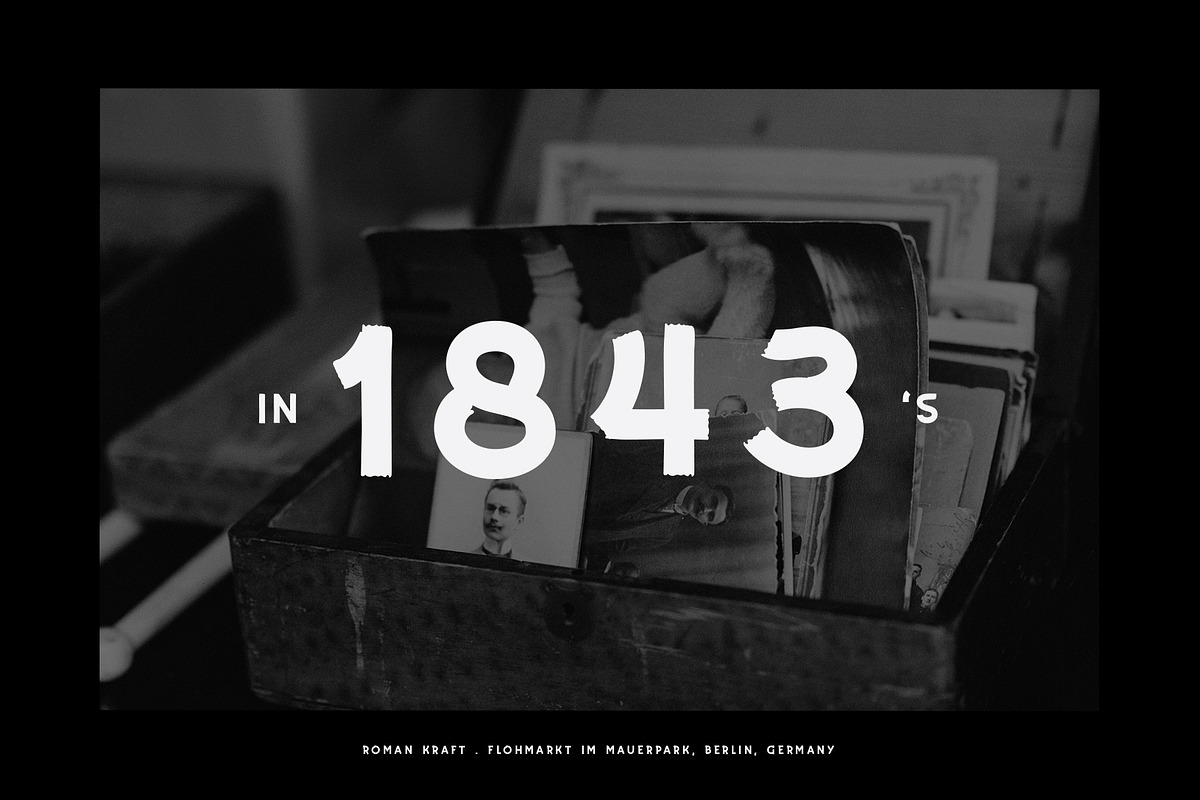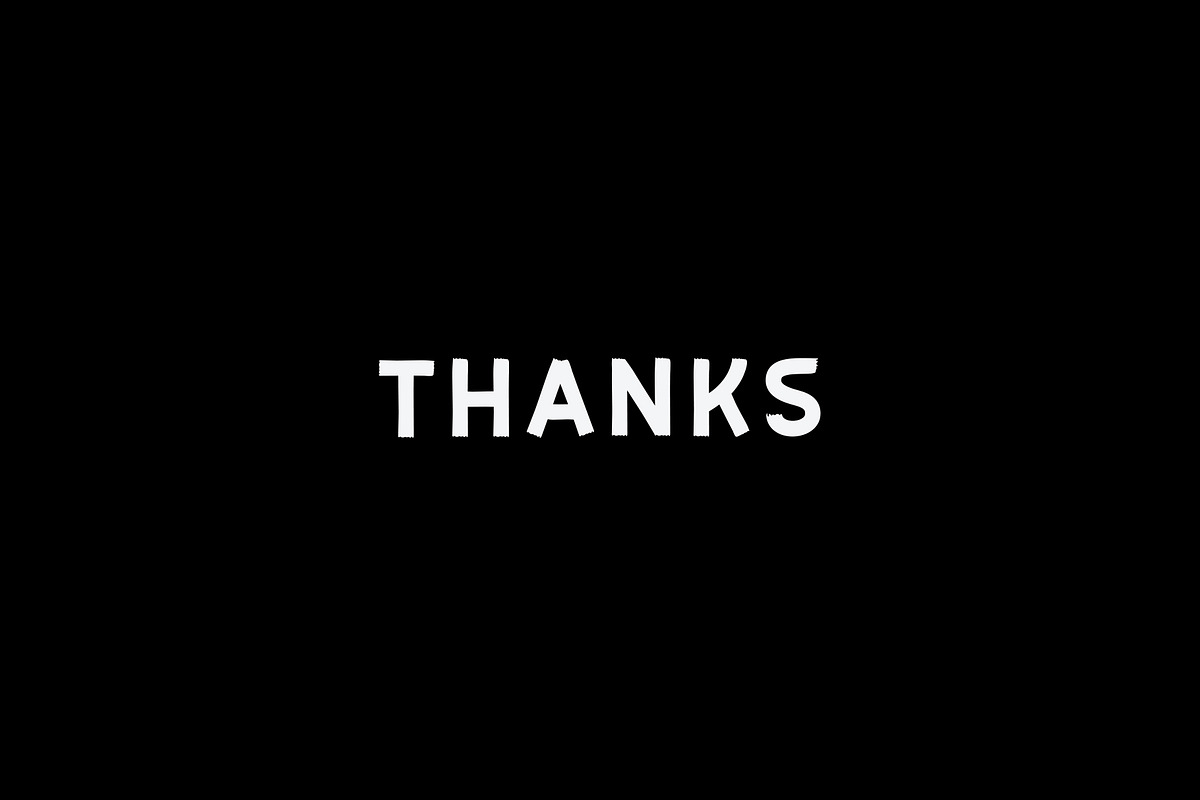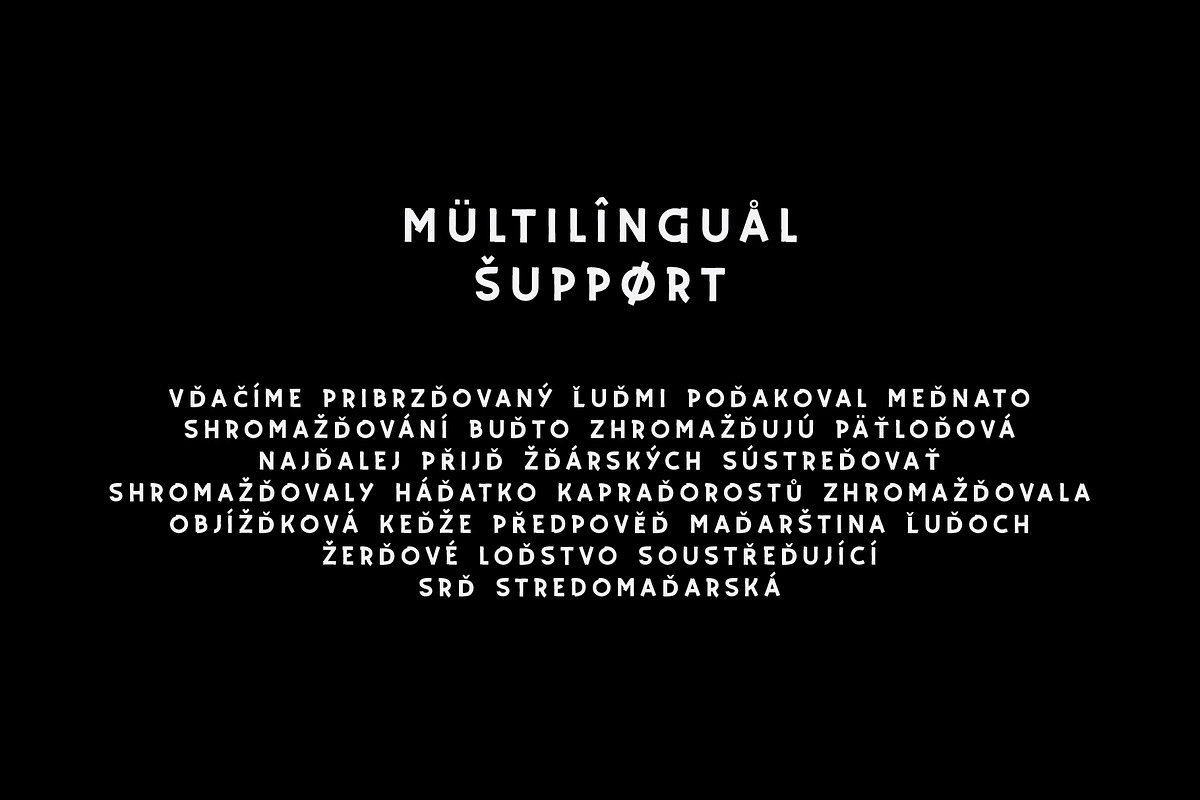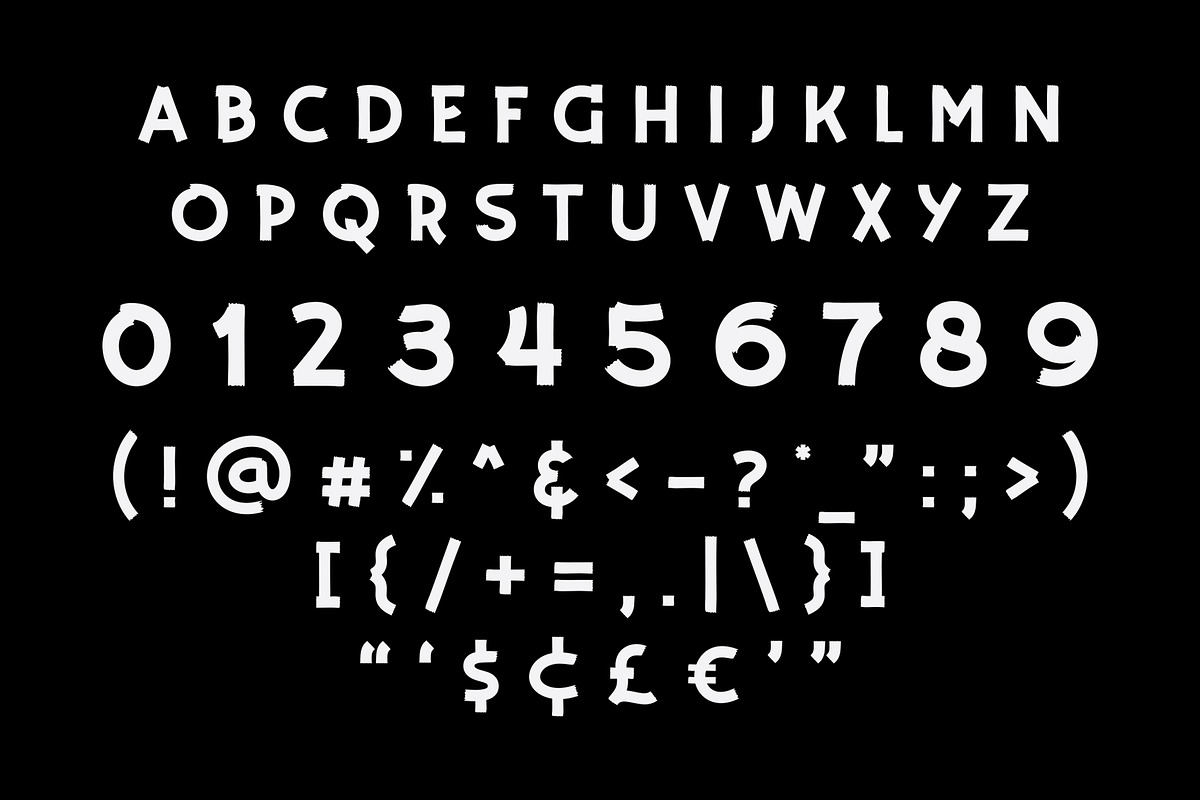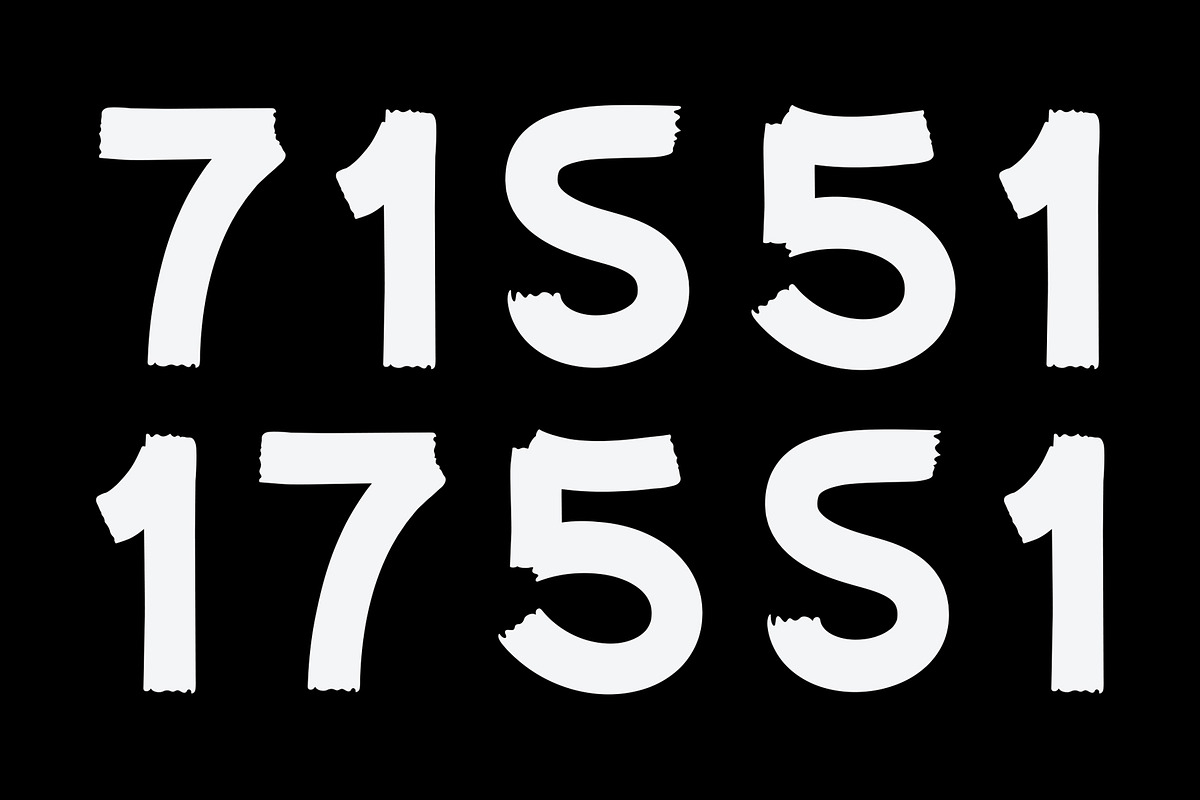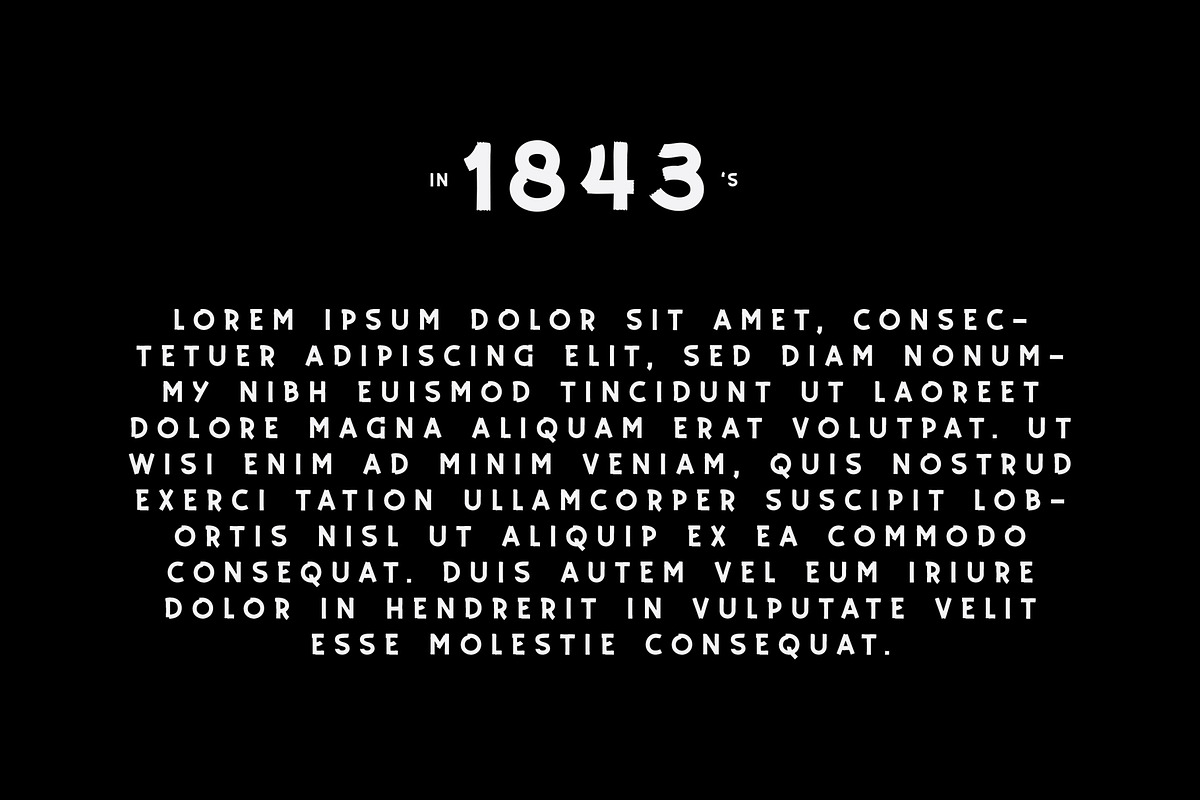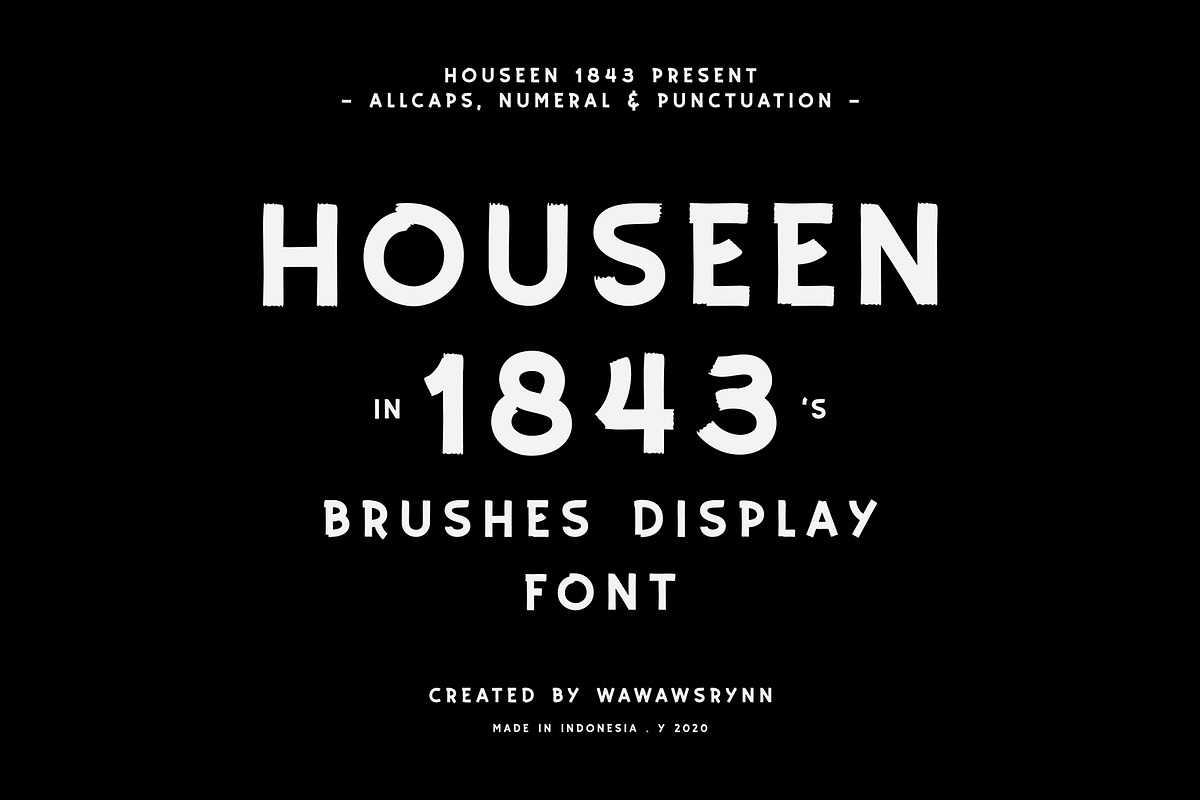
HOUSEEN 1843
Houseen 1843 is Solid Brushes Display Font with a firm nature with a bit of raw edge and a brush effect. very suitable to be used as headline, t-shirt design, graphic design and typeface.
Individual Style Font .